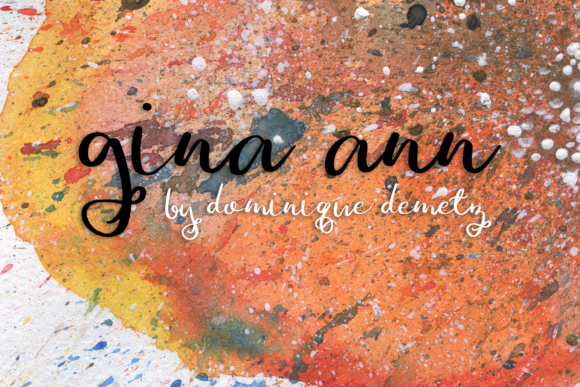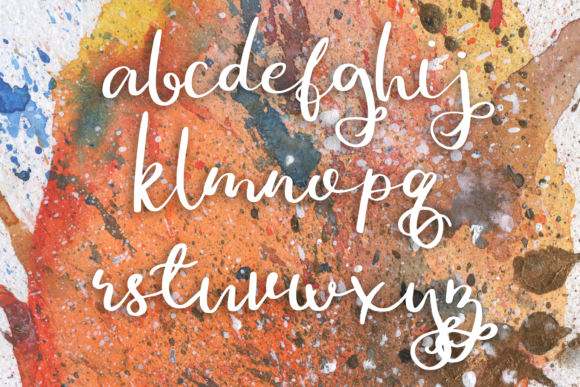
HomeScript FontsGina Ann Font Script Fonts Gina Ann Font FacebookXPinterestWhatsApp Gina Ann Font Poster 2 About Gina Ann Font Gina Ann is a unique handwritten font with lots of personality. It will add a bold twist to any creative project! DOWNLOAD ON CREATIVE FABRICAThis font is sold and delivered by Creative Fabrica. Font Canyon may earn a commission if you buy through this link. People also explored Snow Leopard Font Massilan Font After Story Font Happy Wish Font Sogate Font Happy Popcorn Font Worthington Font Hello Teacher Font Happy Forever Font 332 0 TagsGina Ann Font Previous articleWaltskul FontNext articleKiysoom Font LEAVE A REPLY Cancel reply Comment: Please enter your comment! Name:* Please enter your name here Email:* You have entered an incorrect email address! Please enter your email address here Website: Save my name, email, and website in this browser for the next time I comment. Personal Use Free Latifah Personal Use Free Read more about this font Muthiara Font Personal Use Free Read more about this font Eric”s Personal Use Free Read more about this font Recharge Bold Personal Use Free Read more about this font BLOG Top 7 Google Fonts Alternatives for Faster and Privacy-Friendly Web Design (2025) Top 7 Google Fonts Alternatives for Faster and Privacy-Friendly Web Design (2025) When it comes to web typography, Google Fonts has long been the go-to... Modern Sans-Serif Fonts That Brands Love in 2025 The 10 Best Handwriting Fonts to Add Personality to Your Designs How to Cut Any Font on Cricut: Convert a Font to SVG (Free)